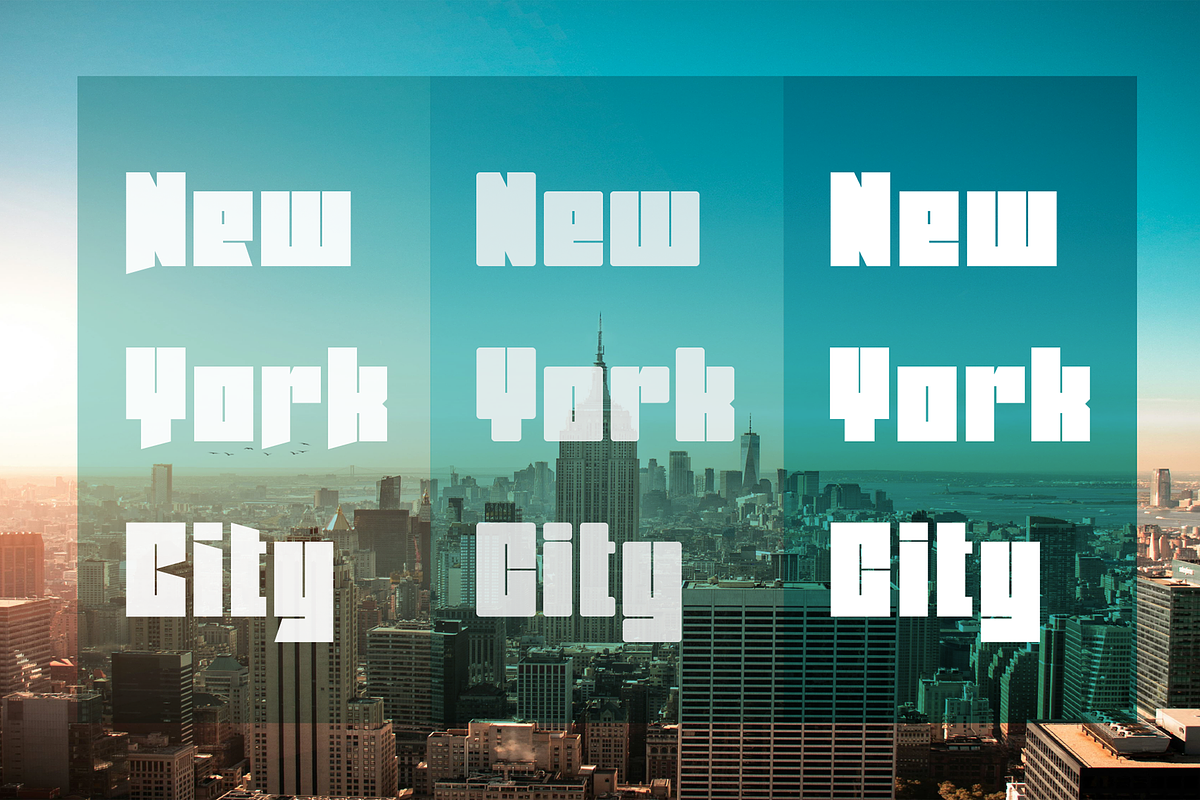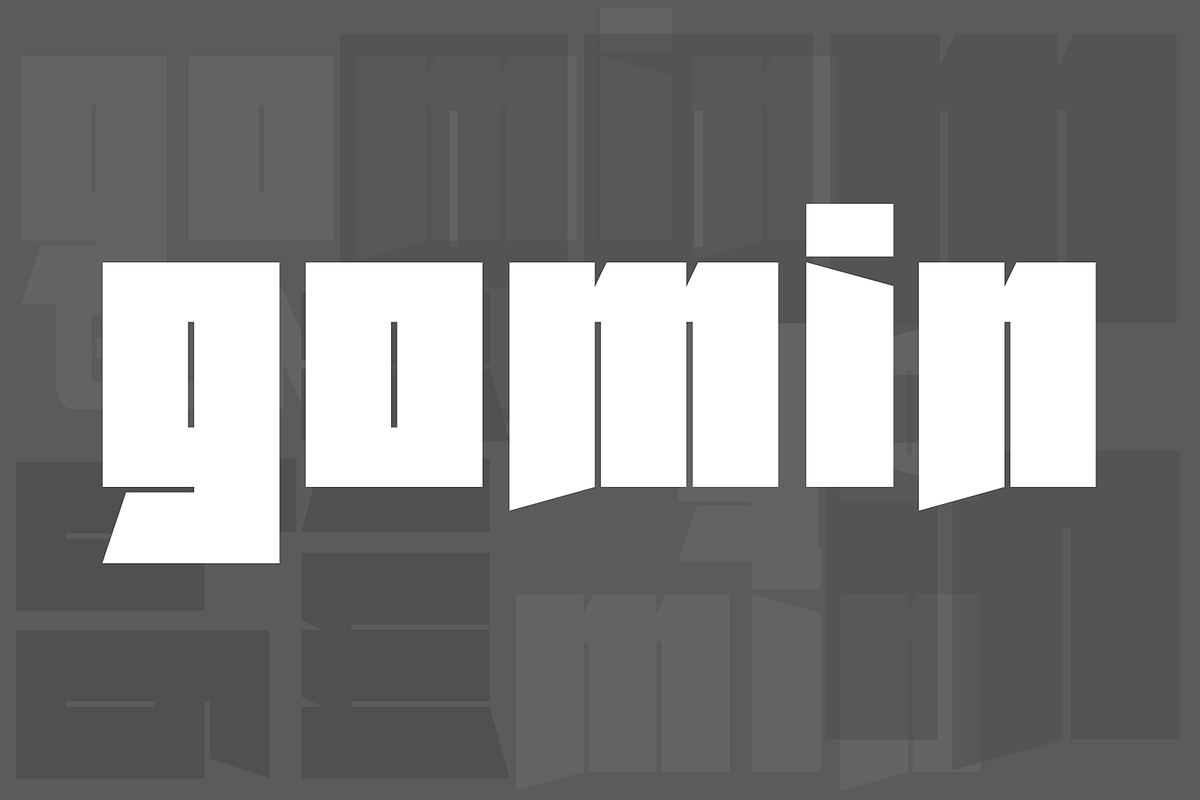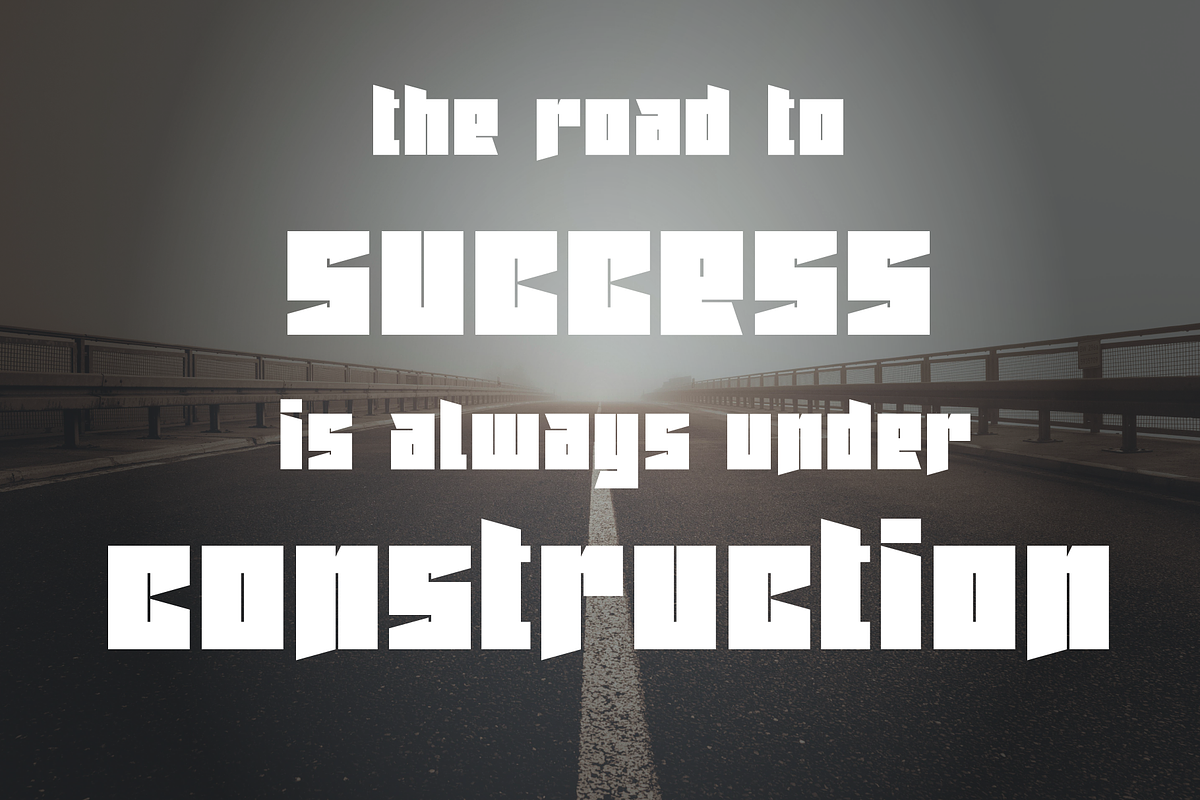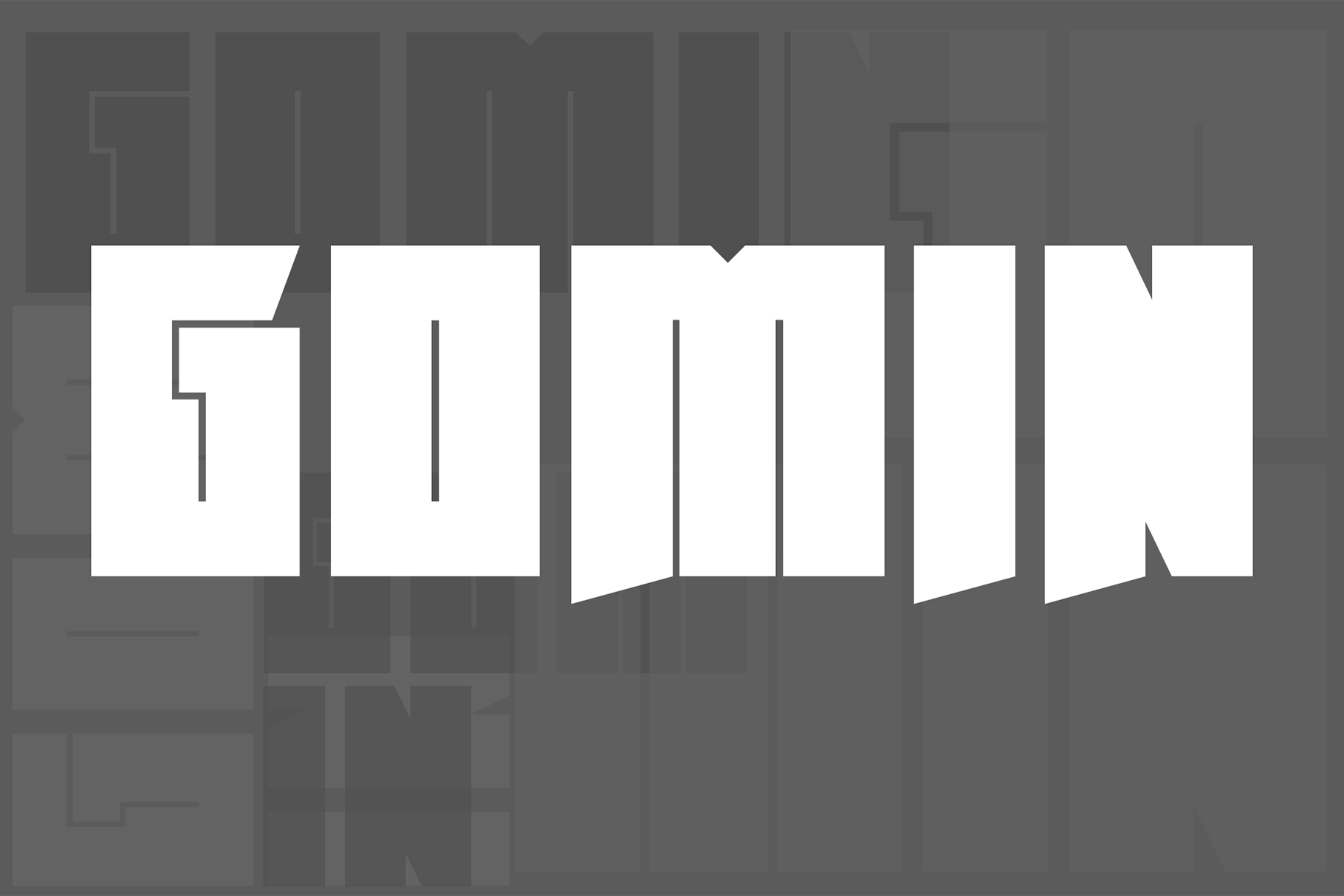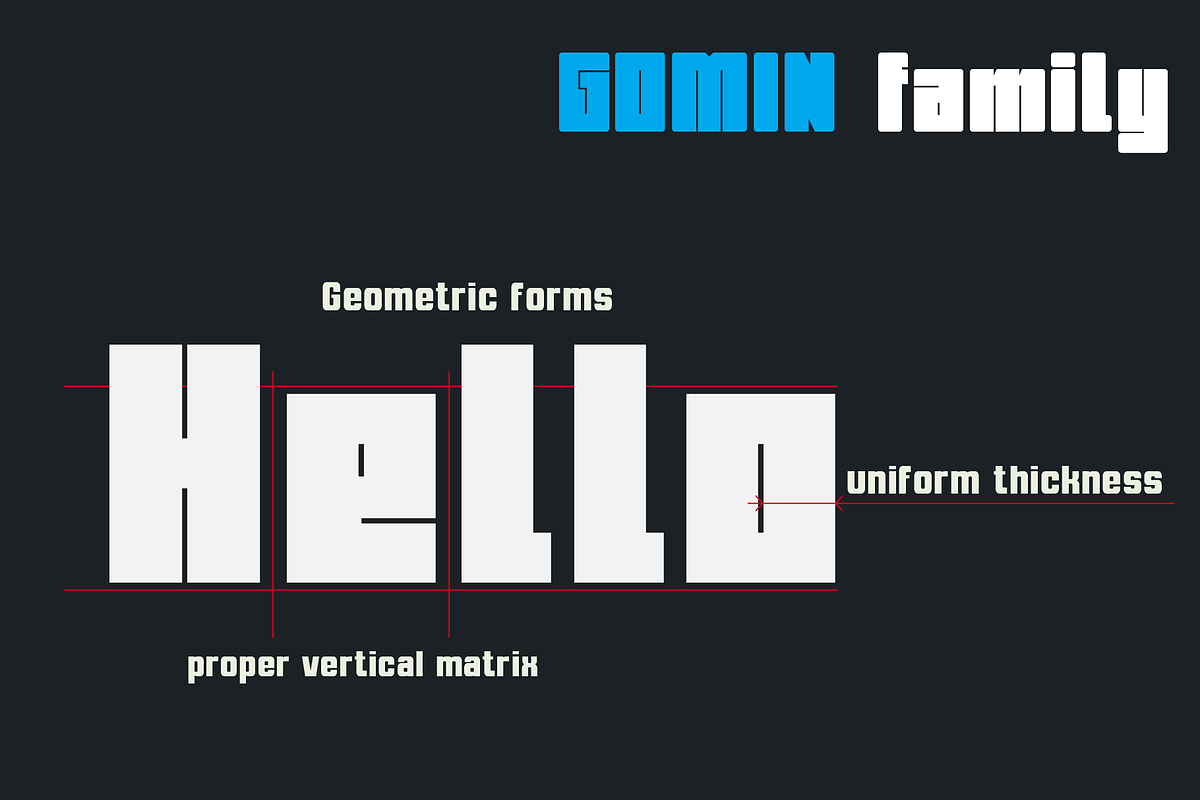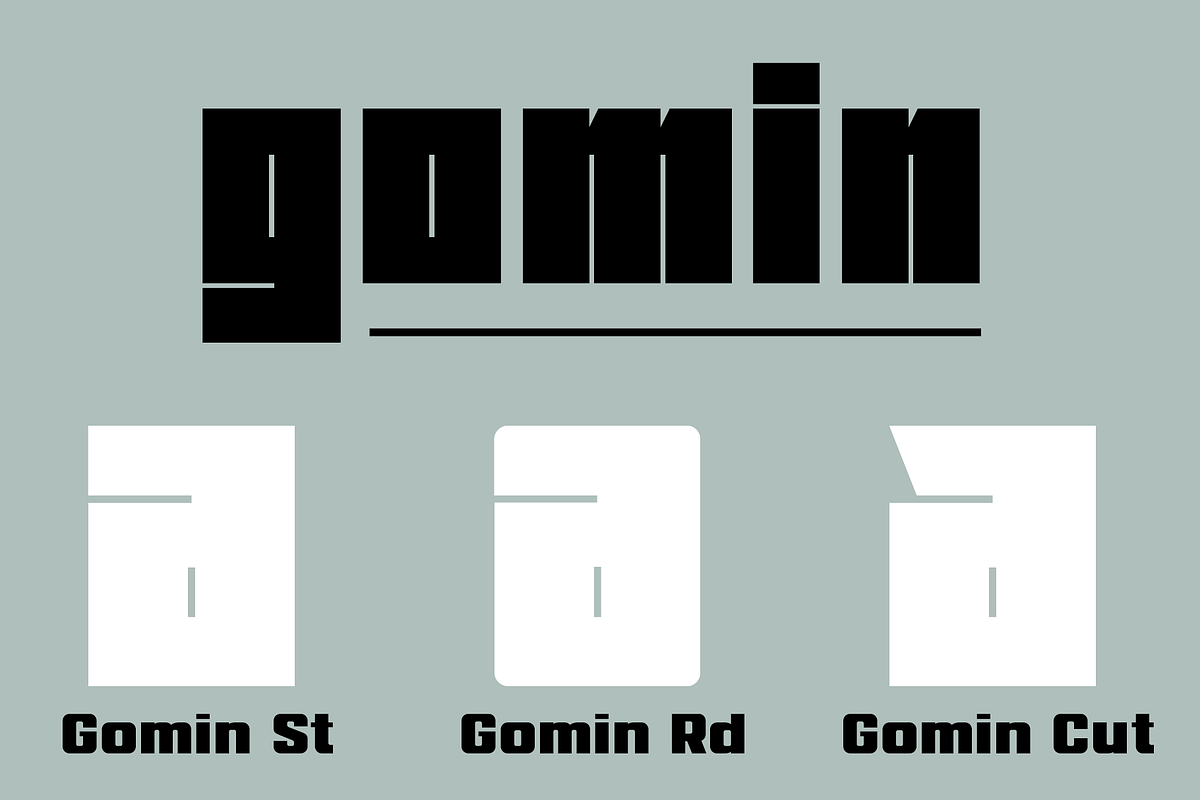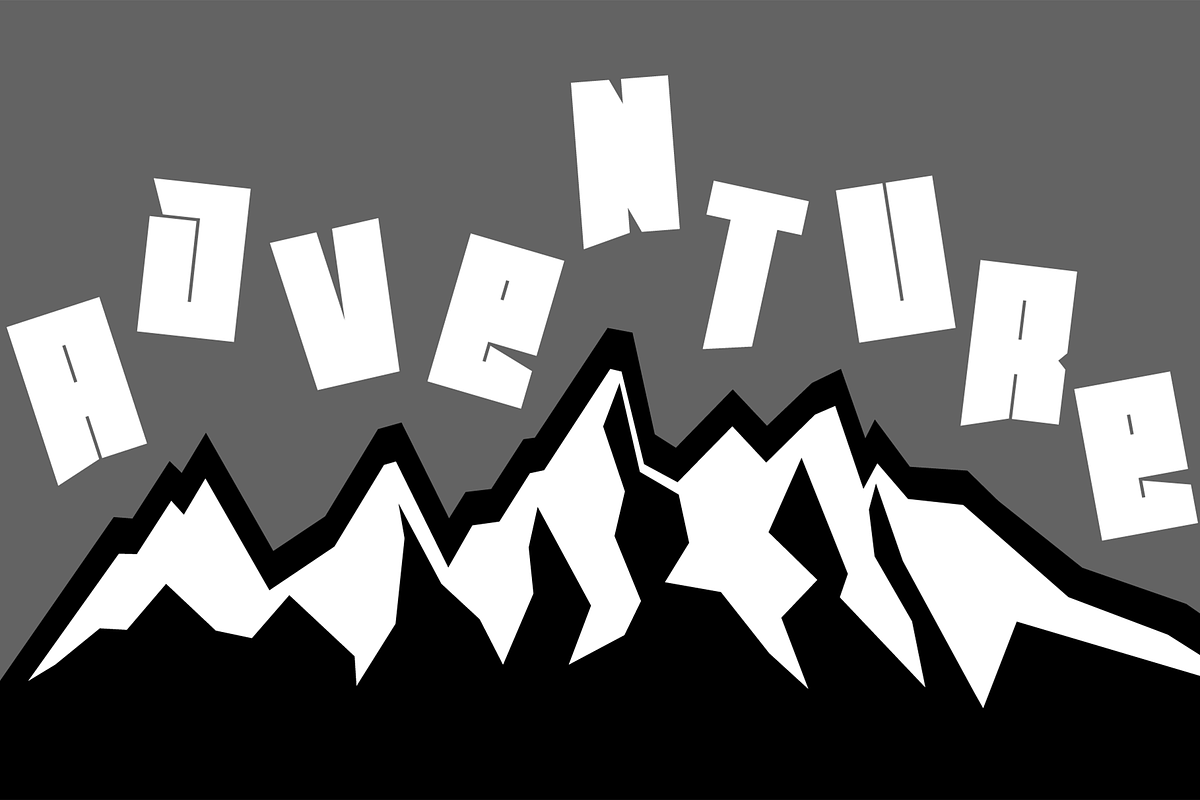
Gomin font family
GOMIN is a massive modern bold sans serif geometric font, includes upper and lower case characters, Latin, Cyrillic, Latin Eastern Europe, Turkish, Baltic and other.
The GOMIN family consists of 3 types of fonts.
GOMIN fonts will be useful in developing a brand, creating posters and other graphic products.